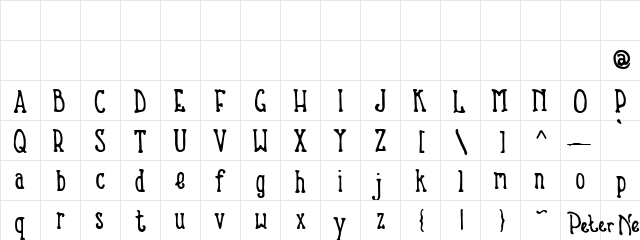
Nevins Hand Regular
Design Context for Nevins Hand Typeface
Nevins Hand flows with the natural rhythm of handwritten lettering, making it ideal for designs that call for warmth and personal expression.
Font Pairing: Combine Nevins Hand with a simple geometric sans for maximum contrast — the tension between flowing curves and clean structure is a classic typographic pairing.
Pro Tip: Use Nevins Hand for short runs of text — names, titles, or taglines. Extended body copy in script faces tires the eye quickly.